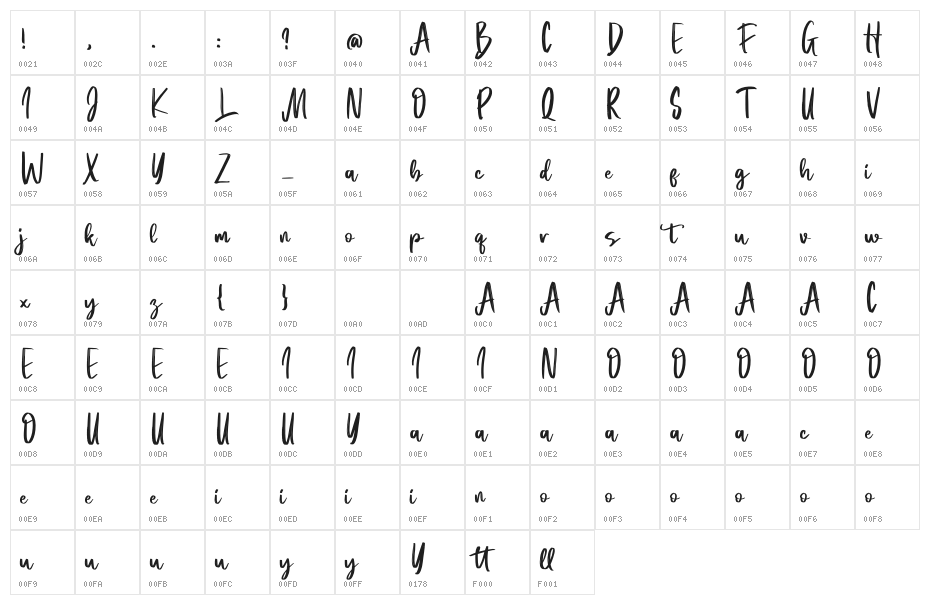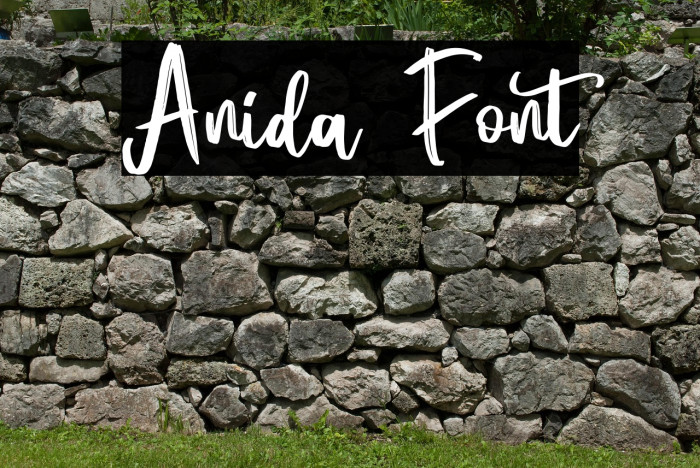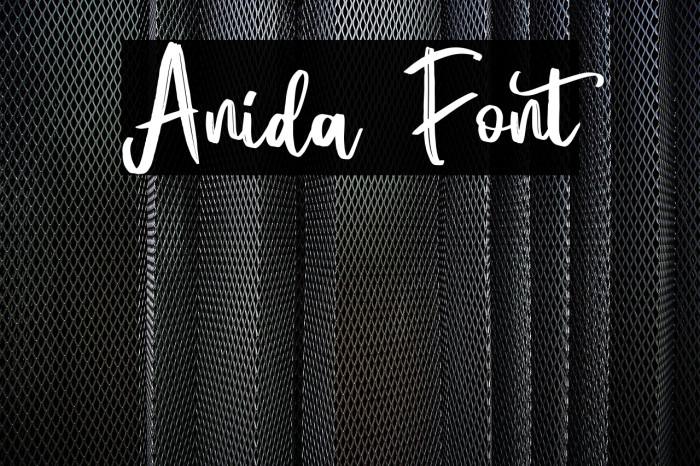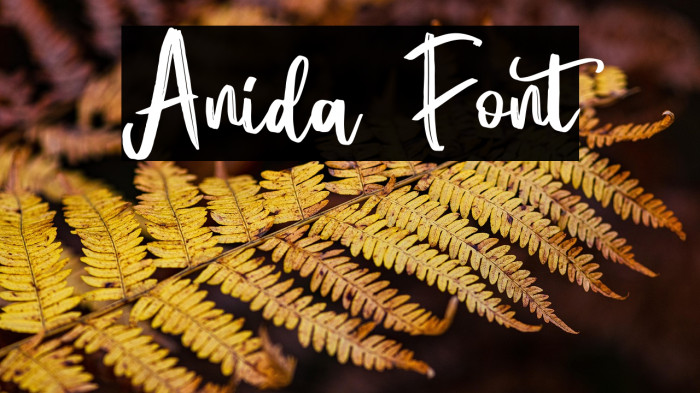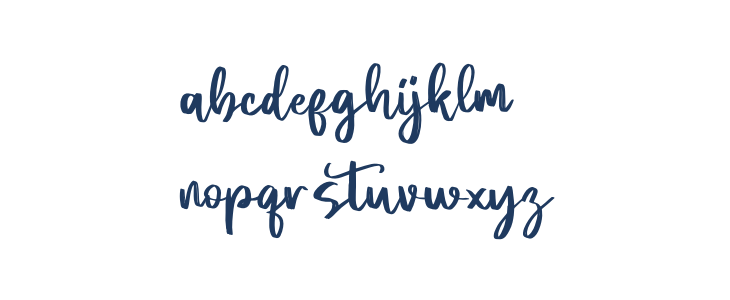
Anida Font
Anida Description
This font features a bold and expressive handwritten style, characterized by its fluid and dynamic strokes. The uppercase letters are tall and slightly narrow, with a playful yet elegant flair. The lowercase letters maintain a consistent flow, enhancing the font's overall cohesiveness. The strokes vary in thickness, adding a sense of movement and energy. This font is ideal for projects that require a personal touch or a creative, artistic vibe. Its unique style makes it suitable for branding, invitations, and social media graphics.
| Use Case | Logos, Headlines, Invitations |
| Proposed Projects | Ideal for branding, invitations, social media graphics, and artistic projects. |